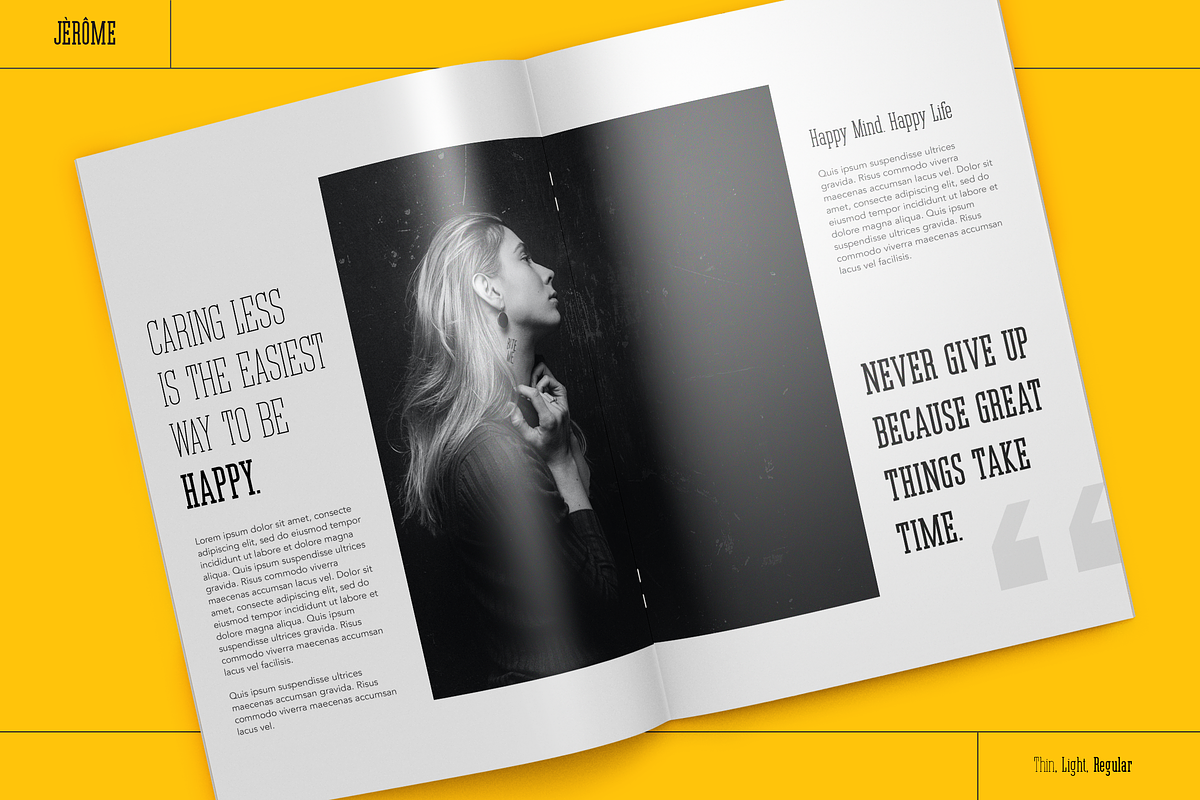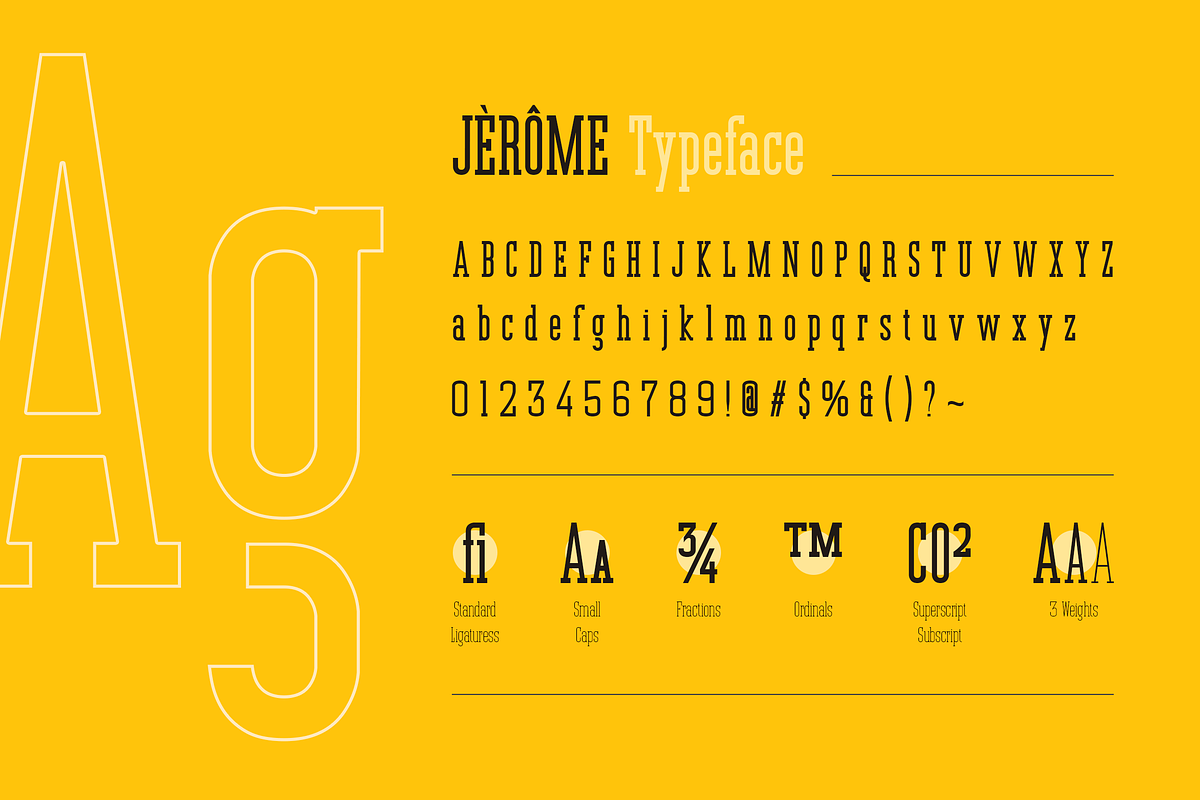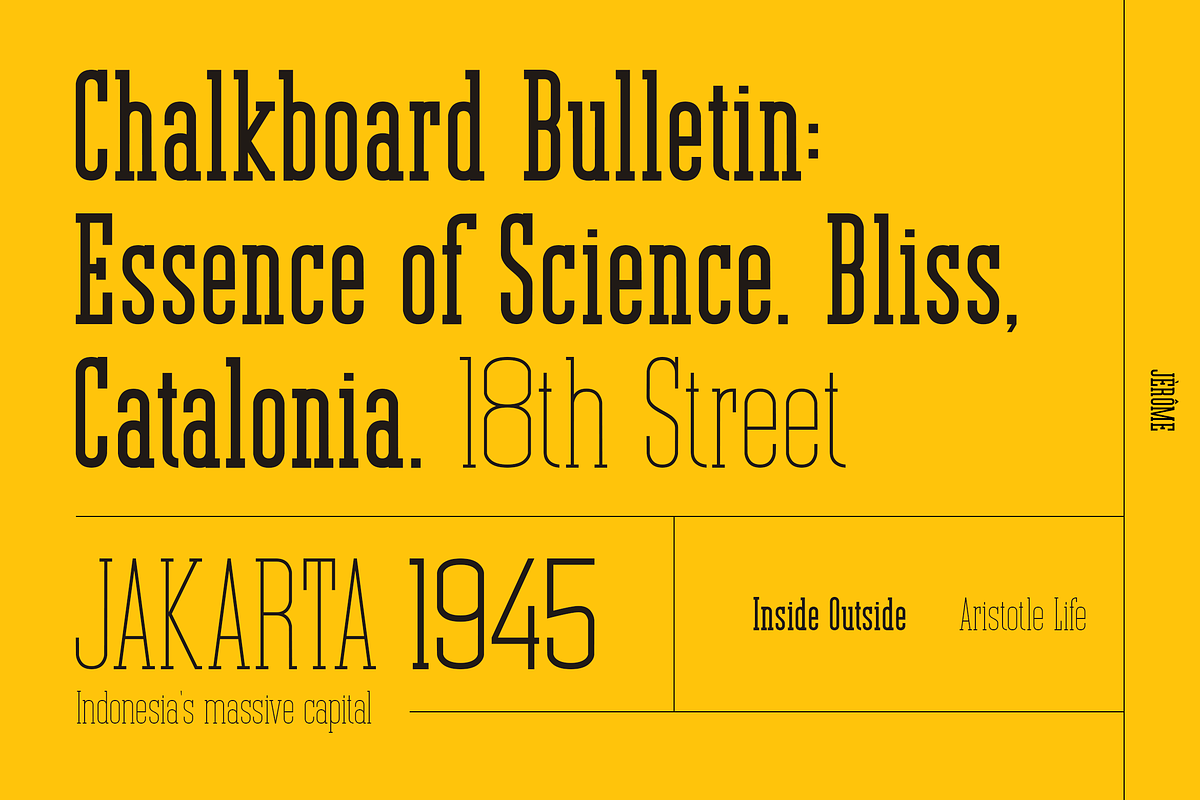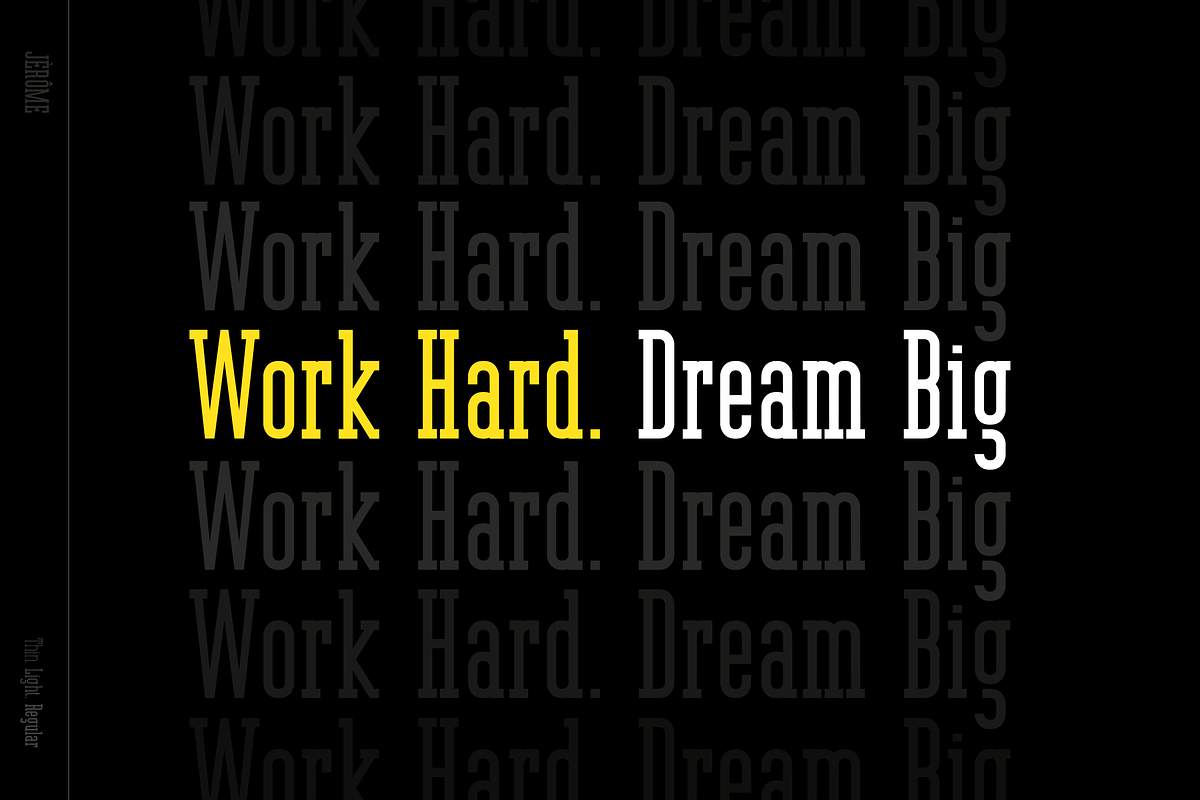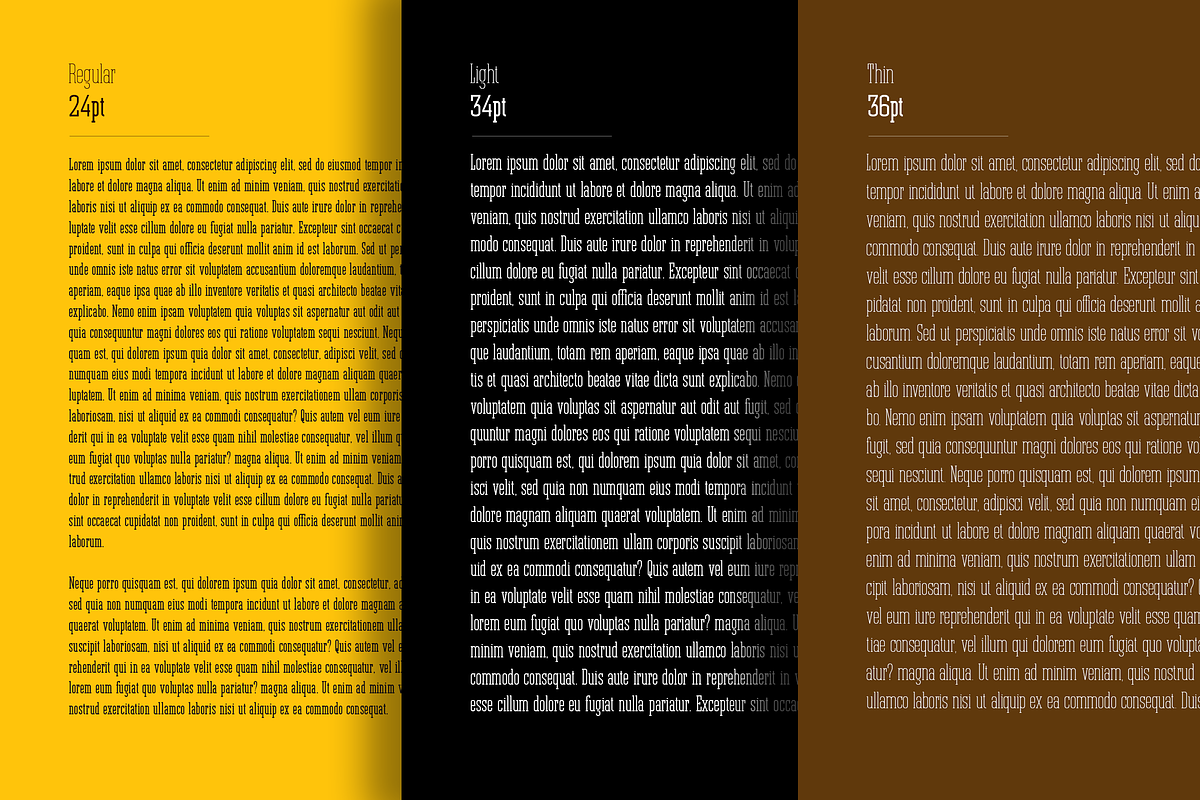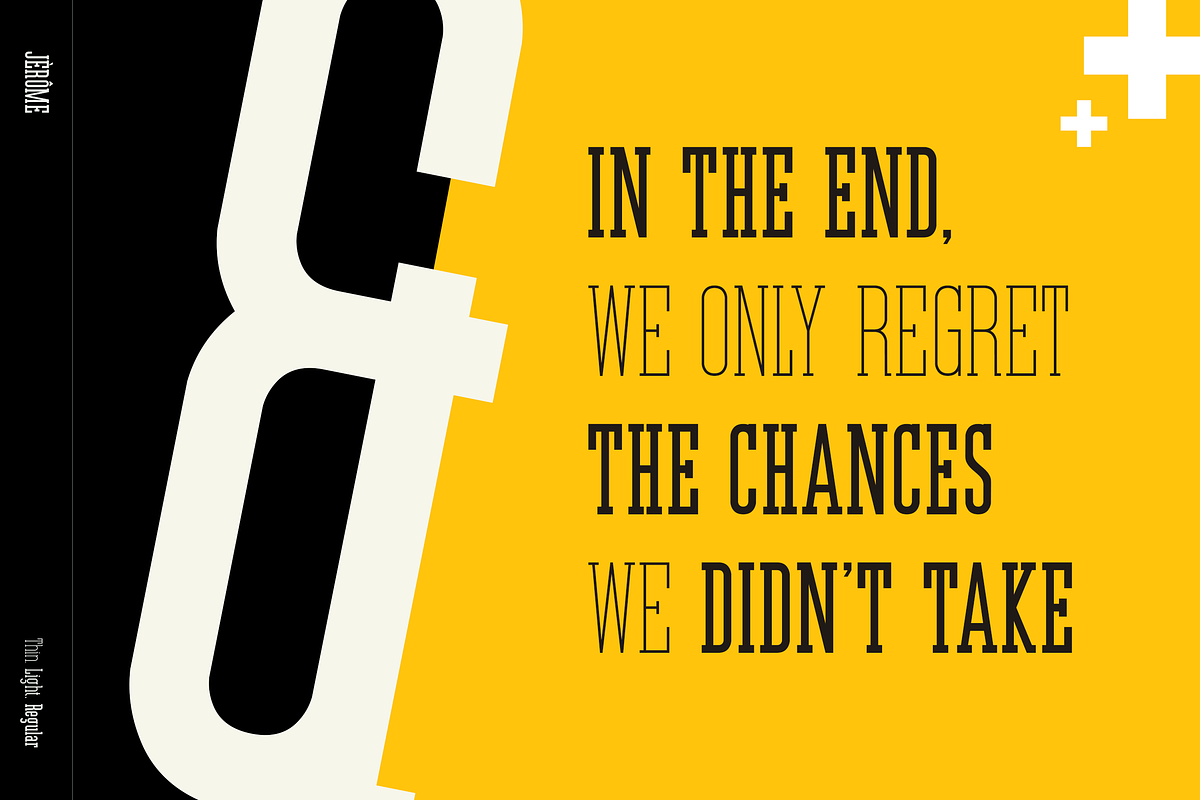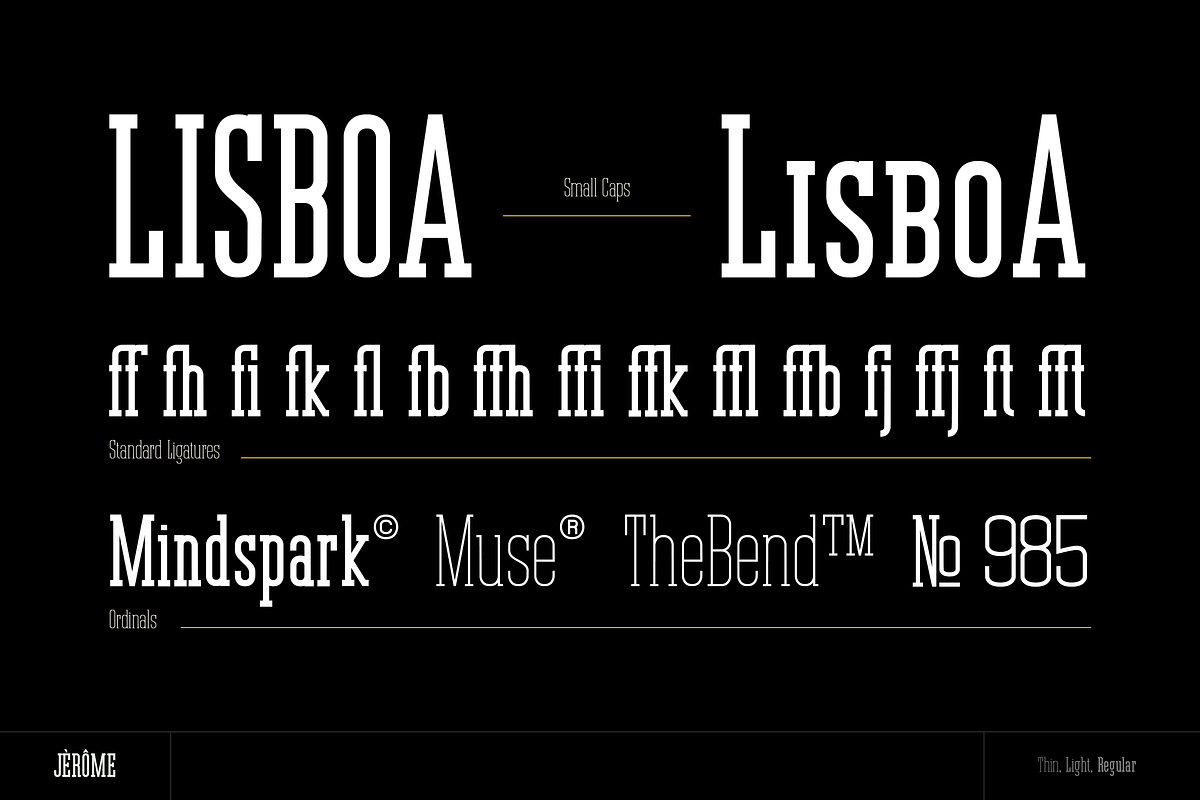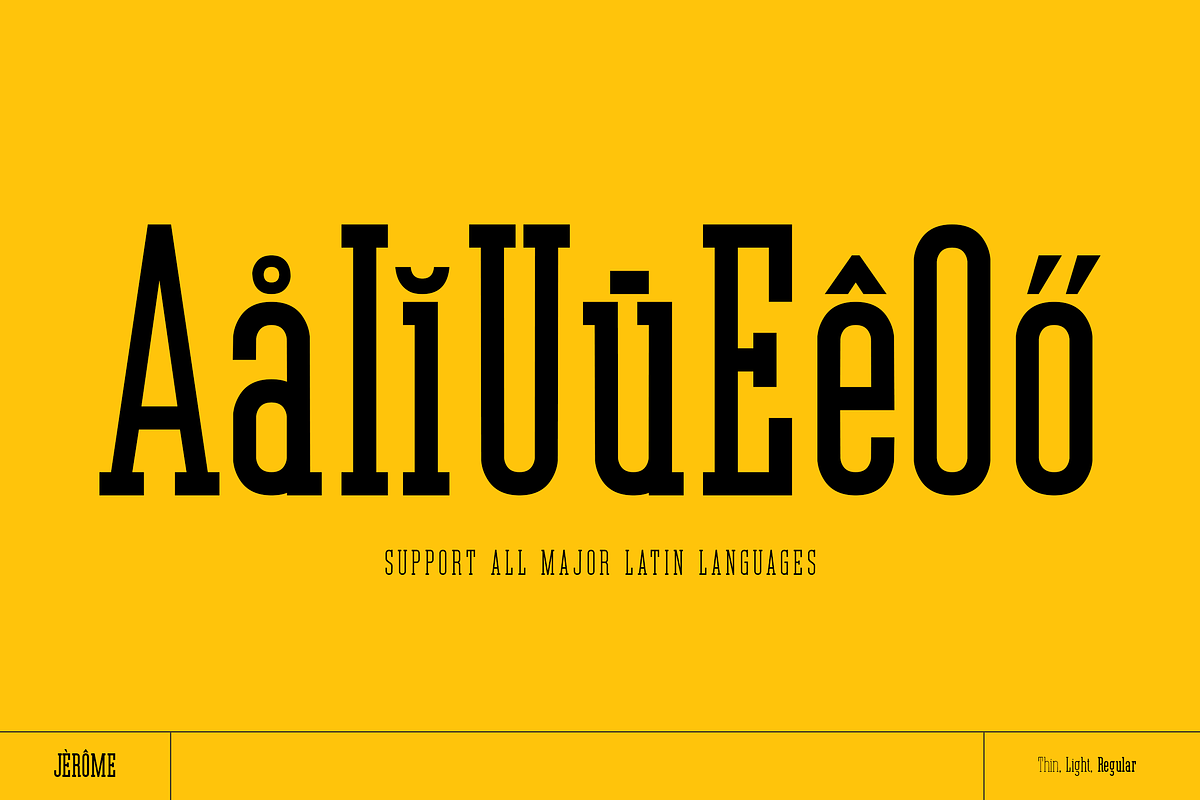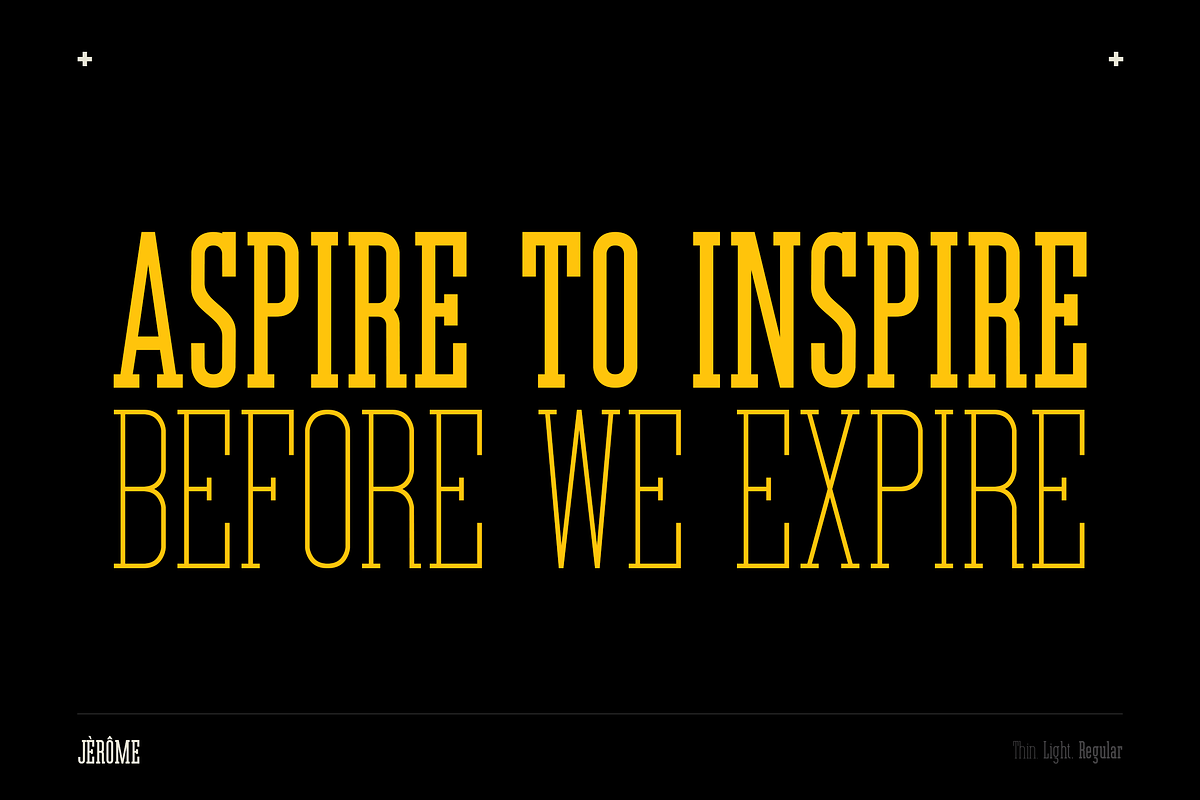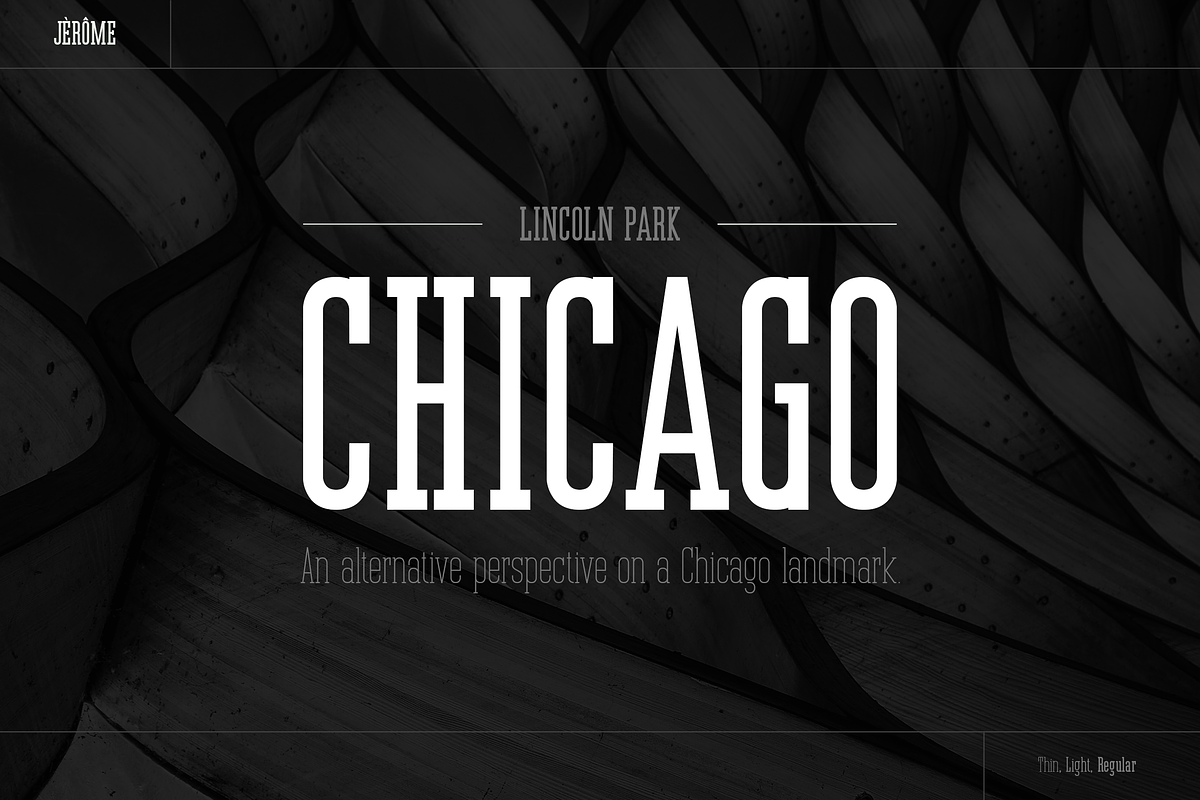
Jerome inspired by compact, strong, and solid font. It comes with 3 weights: Thin, Light, and Regular. Jerome features strong and solid lines, gorgeous glyphs, and stunning styles. It would perfect for logos, magazines, quotes, posters, branding, name card, stationary, design title, blog header, art quote, typography.
- 3 weights: Thin, Light, and Regular
- Standard ligatures
- Small Caps
- Fractions
- Ordinals
- Superscript
- Subscript